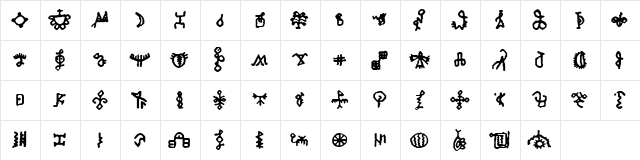
Bamum Symbols 1 Font Preview
Design Context for Bamum Symbols 1 Typeface
Bamum Symbols 1 is a composed and adaptable typeface that performs quietly and consistently across a wide range of design contexts.